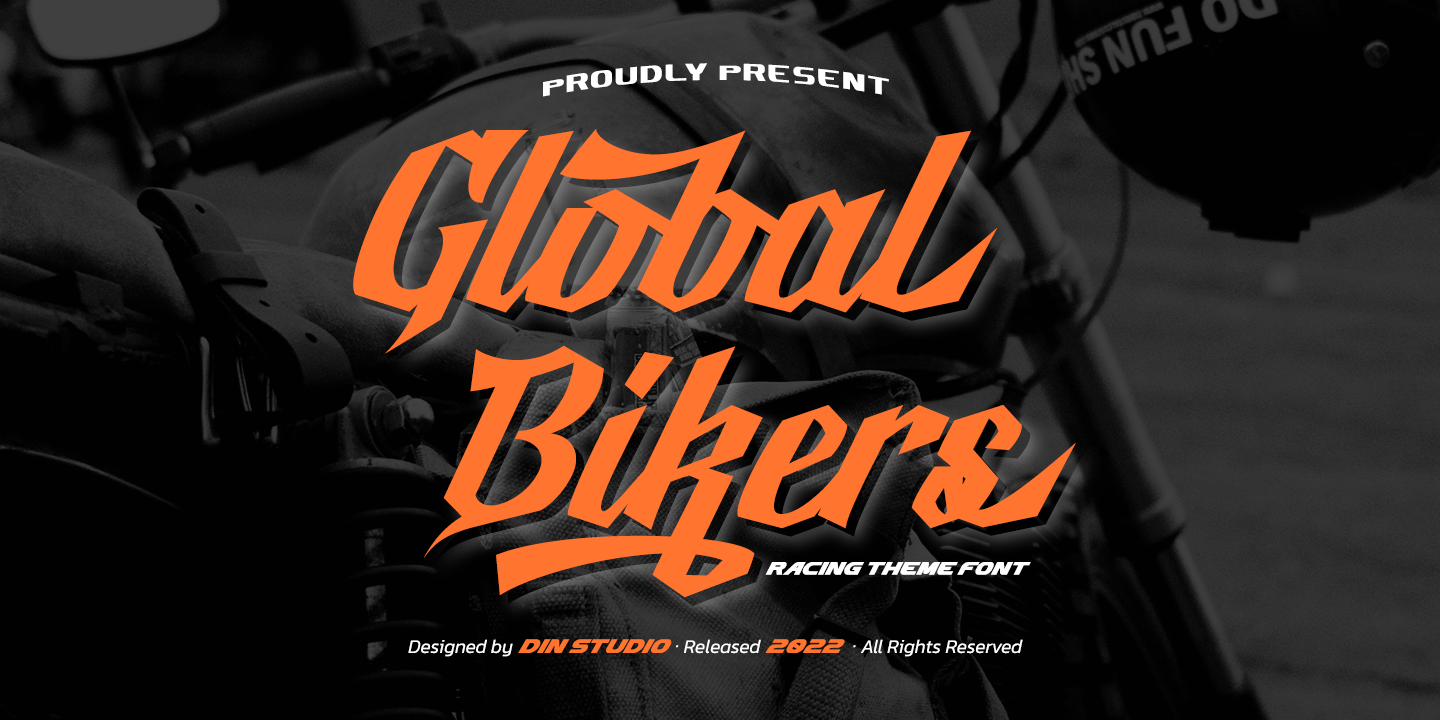
Global Bikers Font is ideal for motorcycle design projects including biker rally promotions, motorcycle dealerships, custom bike shops, riding gear manufacturers, motorcycle touring companies, biker bar signage, motorcycle racing events, and freedom-loving marketing campaigns. This powerful typeface works perfectly for Harley Davidson enthusiasts, motorcycle clubs, biker merchandise stores, motorcycle insurance companies, and projects that celebrate the brotherhood and open road spirit of motorcycle culture.
What makes Global Bikers Font exciting is its rebellious motorcycle character that perfectly captures the essence of biker freedom and road warrior spirit. The font features bold letterforms with mechanical styling that reflects the raw power and independent attitude of motorcycle culture. Its rugged design elements embody the spirit of open road adventure and biker brotherhood, making it perfect for projects that need to convey freedom, rebellion, and connection to motorcycle heritage. The carefully crafted mechanical details create an atmosphere of road warrior authenticity and biker solidarity.
Global Bikers Font comes in multiple family variations including cruiser, chopper, rebel, and touring styles. Each weight maintains the distinctive motorcycle character while offering different levels of biker intensity and road presence. The font family includes motorcycle alternates, road ligatures, and biker variations that provide designers with comprehensive options for creating truly authentic and motorcycle-inspired typographic compositions that celebrate riding culture.
Whether you're designing motorcycle branding, creating biker marketing materials, or developing road promotional graphics, Global Bikers Font Free Download provides the perfect typographic foundation for projects that celebrate motorcycle excellence and biker freedom. This extraordinary typeface transforms ordinary text into compelling expressions of road warrior spirit and motorcycle passion. Download this rebellious font today and ride your design projects with the biker authenticity and motorcycle freedom that captures the eternal spirit of open road adventure and brotherhood solidarity.